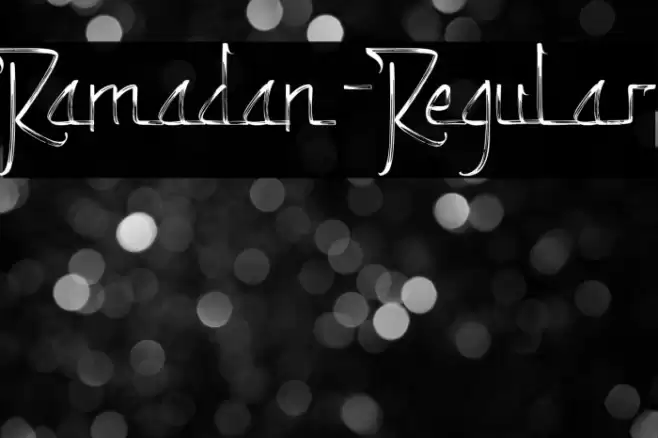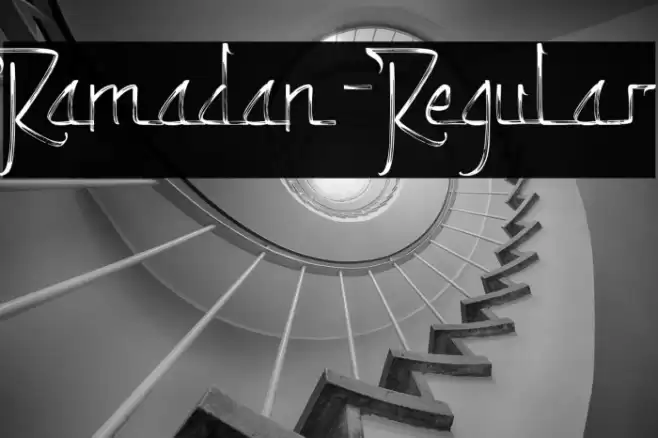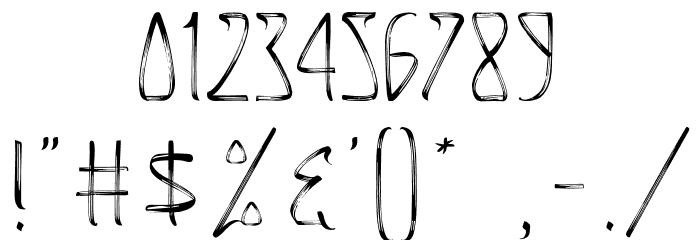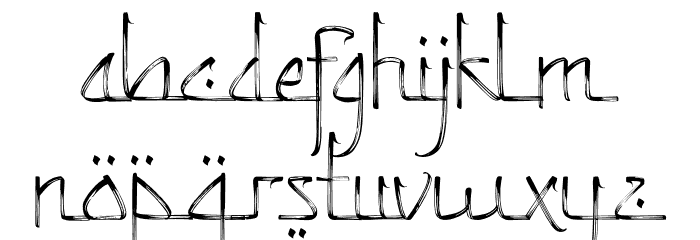
Ramadan-Regular Font
Ramadan-Regular Description
This font features a unique and artistic style, characterized by its flowing, calligraphic strokes and intricate details. The uppercase letters exhibit a bold presence with elongated verticals and sharp angles, creating a sense of movement and elegance. The lowercase letters maintain a consistent style, with smooth curves and a slightly condensed form, enhancing readability while retaining an artistic flair. The numerals are distinct and harmonize well with the overall design, offering a balanced appearance. Special characters are thoughtfully integrated, maintaining the font's cohesive aesthetic. This font's design is both decorative and functional, making it suitable for a variety of creative applications.
An artistic, calligraphic font with flowing strokes and intricate details from Uncategorized fonts.
- Proposed Projects: Ideal for invitations, branding, posters, and artistic projects requiring a decorative touch.
- Use Case: Logos, Headlines, Artistic projects